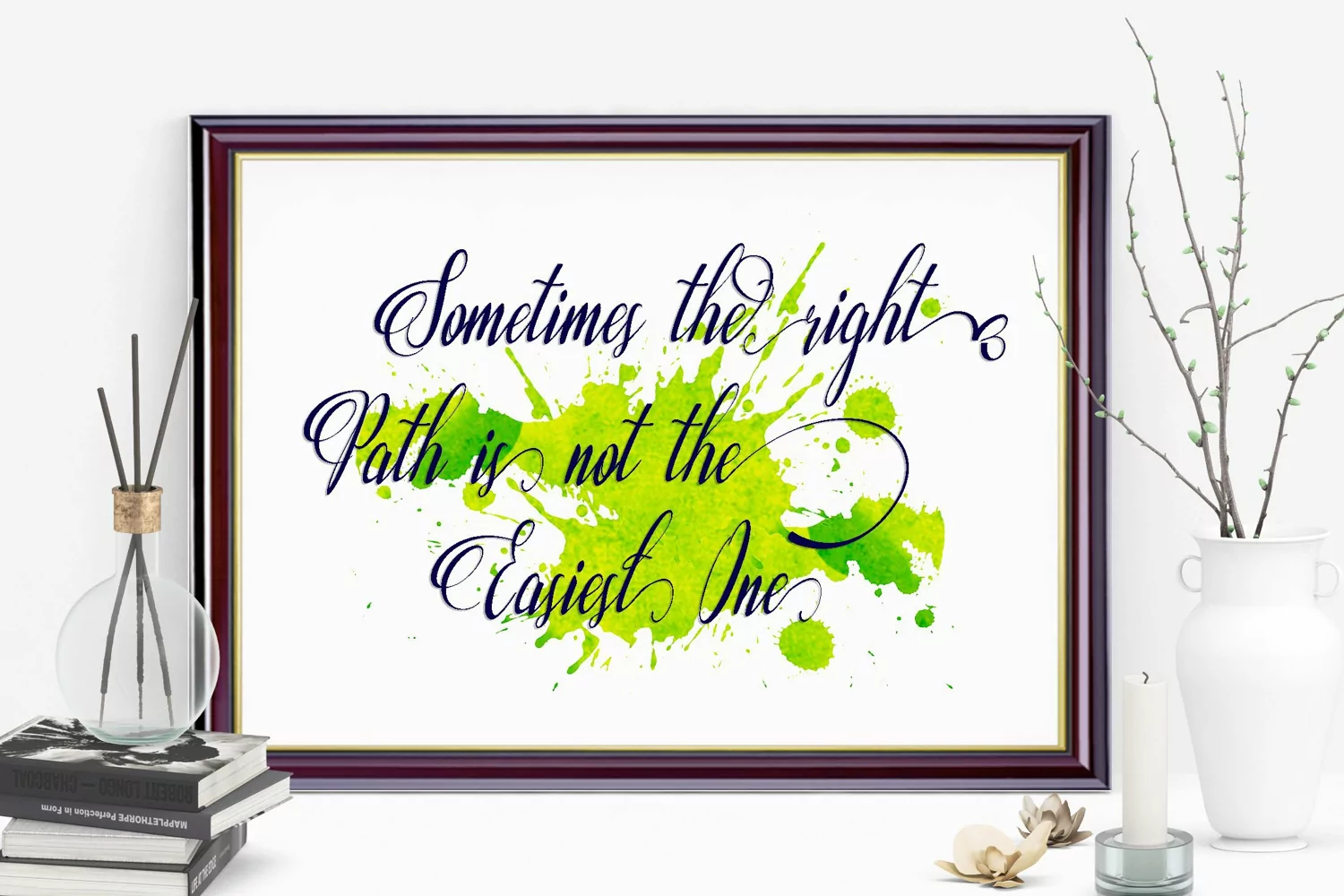
Ferdreges Script includes a regular and italic version perfect for different types of projects.
With 520+ glyphs and 36 alternate characters you will always keep your craft and design projects fresh with new styles of lettering.